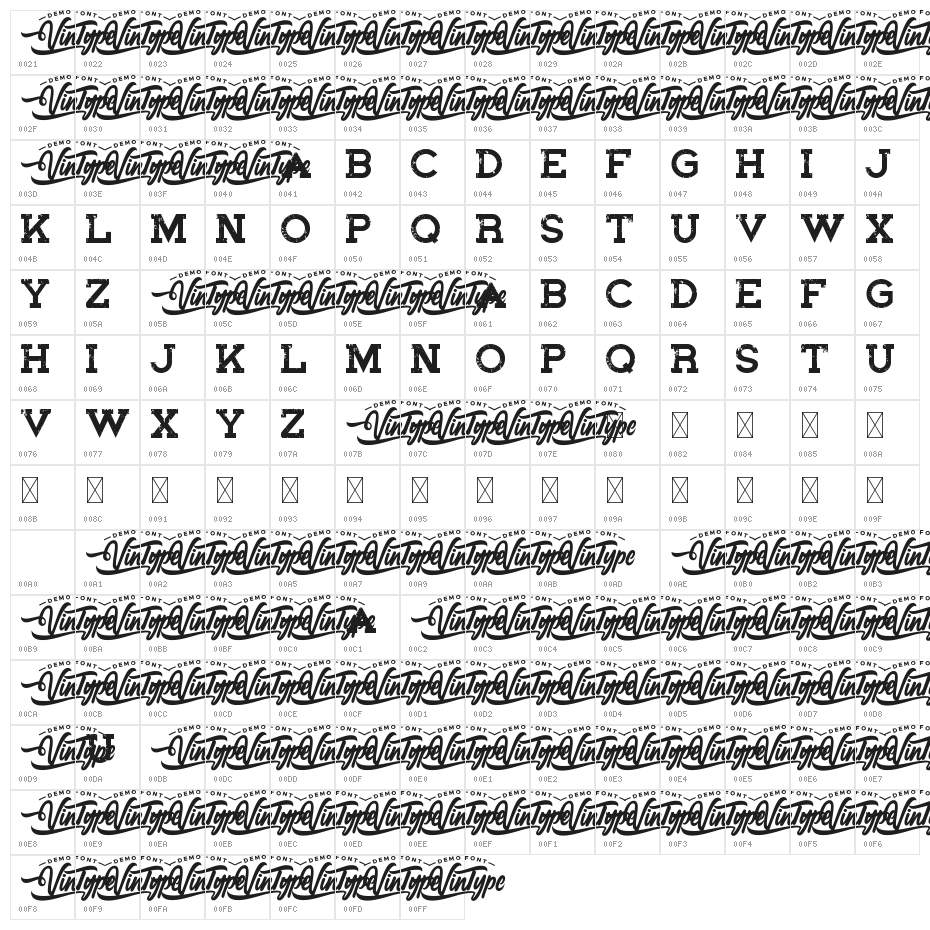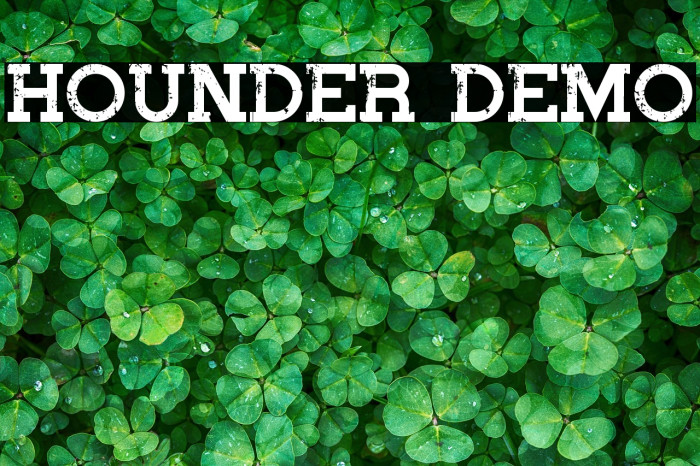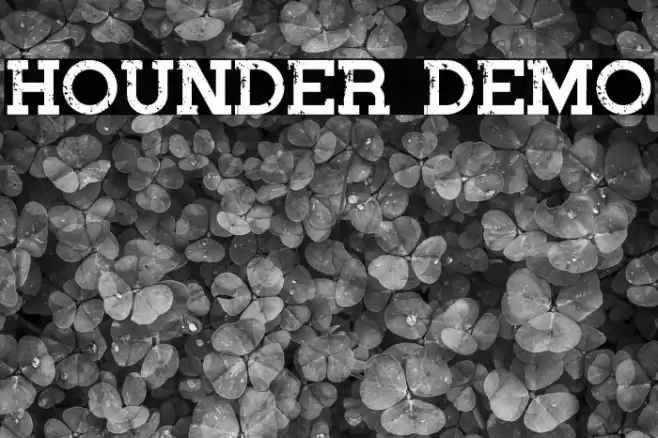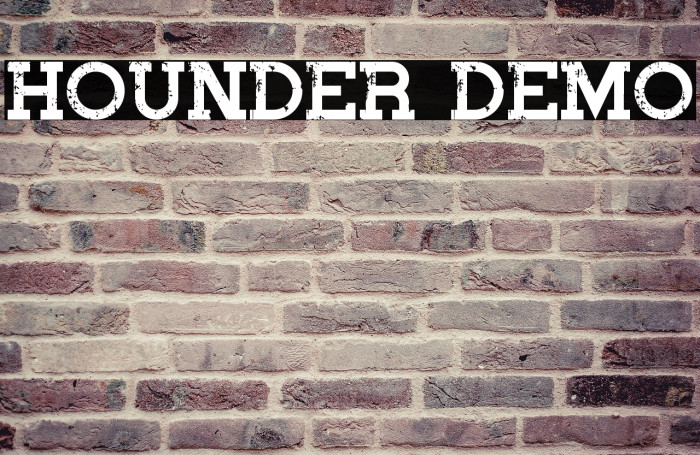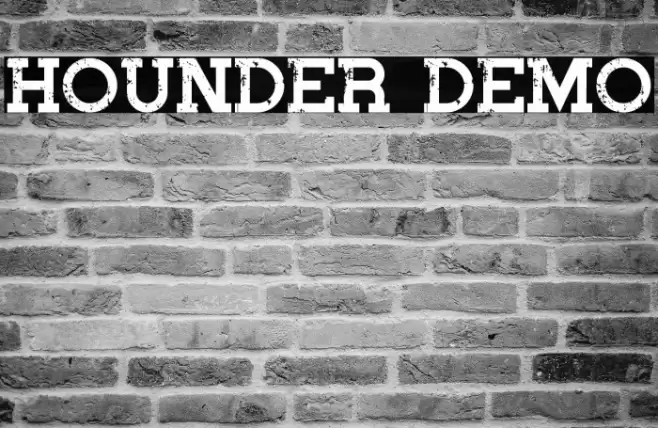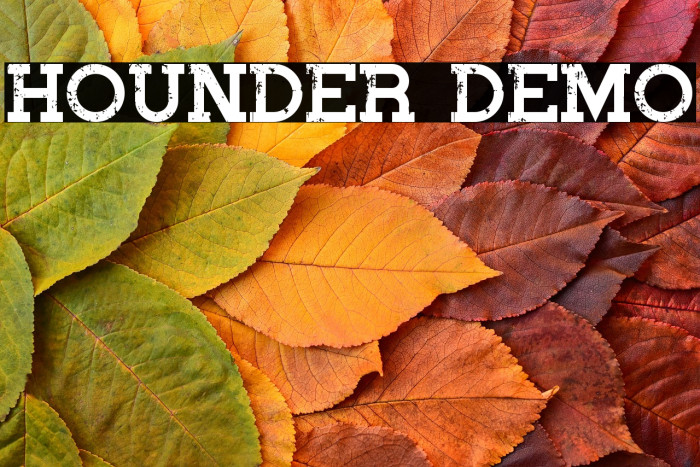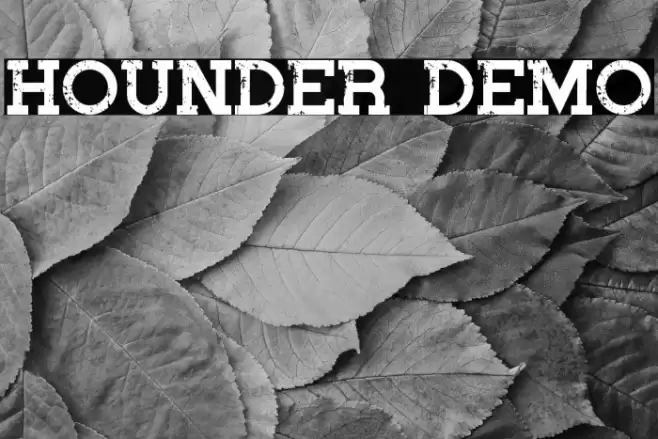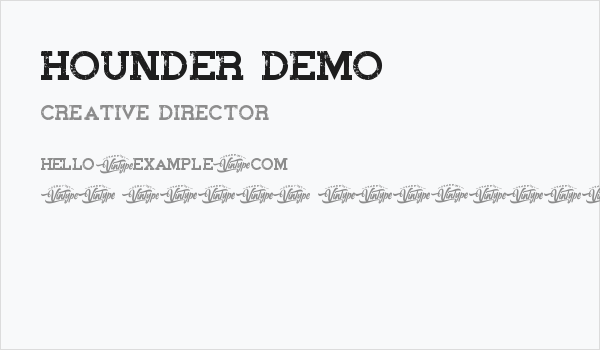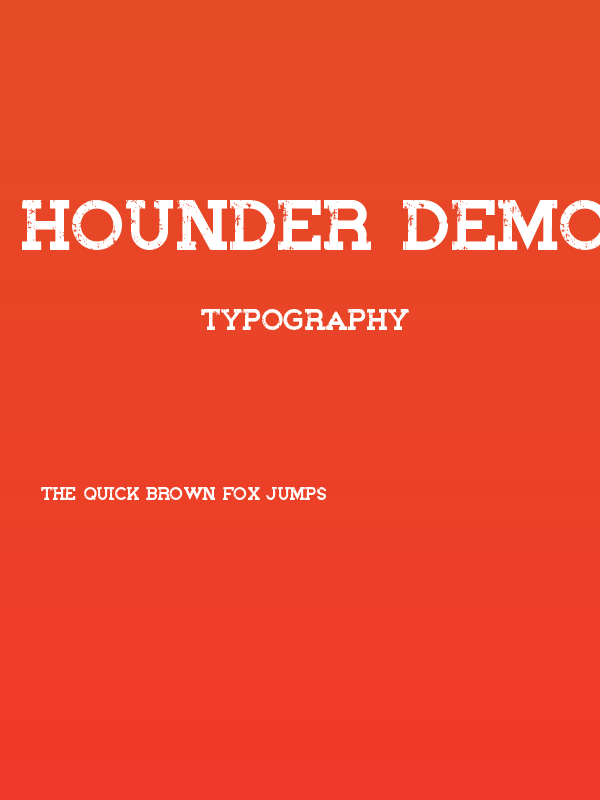
Hounder Demo Font
Hounder Demo Description
This font features a bold and distressed style, characterized by its rough, textured edges that give it a vintage, worn appearance. The uppercase letters are prominent and commanding, making it ideal for designs that require a strong visual impact. The font's unique texture adds a layer of depth and character, reminiscent of old printing techniques or weathered signage. Its boldness ensures readability while the distressed details provide a distinctive, artistic flair. This combination of boldness and texture makes it suitable for projects that aim to convey a sense of history or ruggedness.
| Proposed Projects | Ideal for vintage-themed posters, branding for rustic or artisanal products, and designs that require a strong, historical aesthetic. |